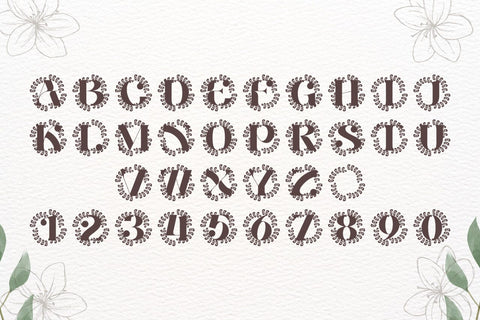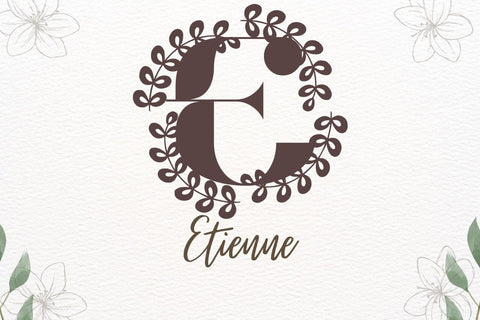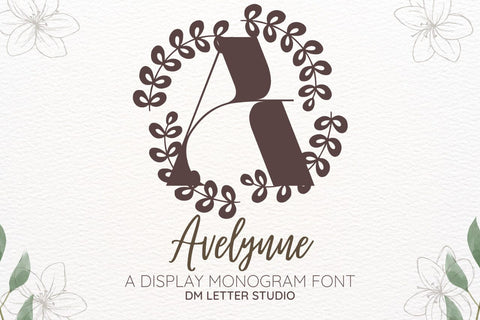
Avelynne Monogram Font
Meet Avelynne, the Monogram Font
Avelynne Monogram Font turns simple initials into elegant marks. The curves feel smooth and balanced. Spacing lands clean, so tiny tags still look crisp. Use it for wedding suites, boutique branding, keepsake gifts, and premium packaging. Moreover, it pairs beautifully with soft serifs and modern sans fonts. Therefore, your layouts feel refined without extra effort.
Where the Monogram Font shines
Set single, double, or triple initials for logos and seals. Then add thin borders, laurel rings, or simple frames to echo the form. Since proportions favor symmetry, polished compositions come together in minutes. As a result, your thumbnails stand out and listings stay consistent across platforms. Plus, Avelynne scales gracefully from jewelry cards to venue signage.
Fast setup, polished results
Design tips for Avelynne Monogram Font
Keep initials large and let negative space breathe. Pair the headline monogram with a quiet serif or a humanist sans. Meanwhile, add micro shadows, a fine-line frame, or a thin inner stroke for depth. Because the structure is airy, metallic accents and textured papers lift perceived value. However, keep copy short so the Monogram Font remains the hero.
Select stylistic alternates for key letters
Curves tuned for foil, letterpress, engraving, and clean vinyl cutting
Why creators choose this Monogram Font
You want elegance that reads fast and sells quickly. Avelynne delivers. It captures attention at thumbnail size, shortens production time, and keeps brand voice cohesive across suites. Consequently, invitations, menus, tags, and favors all feel aligned and premium.
Creative ideas to boost value
Press wax seals for invitations. Then engrave compact mirrors and luggage tags. Also, design pattern tiles and ribbon tags for full brand kits. Finally, schedule a coordinated drop before peak events to lift conversion and repeat sales.